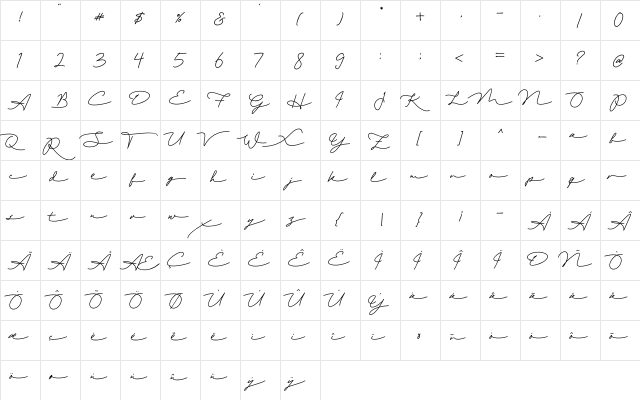
Raulina Regular
Design Context for Raulina Typeface
Raulina is a composed and adaptable typeface that performs quietly and consistently across a wide range of design contexts.